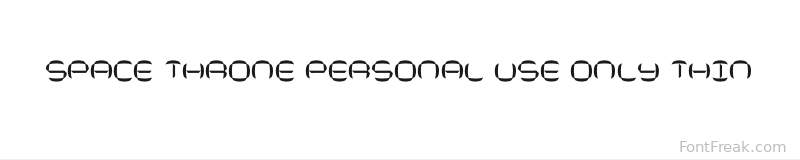
Space Throne PERSONAL USE ONLY Thin
About Space Throne PERSONAL USE ONLY Thin
The Space Throne PERSONAL USE ONLY Thin font by Mans Greback is a captivating display typeface that merges a modern aesthetic with a hint of futuristic flair. This sans-serif font features a sleek, thin stroke weight that lends itself to a light and airy feel, making it an excellent choice for contemporary design projects. The character spacing is well-balanced, allowing for legibility while maintaining an elegant appearance, and the subtle curves add a unique touch without overwhelming the overall design.
This font is particularly well-suited for a variety of creative applications. It can enhance wedding invitations with its stylish elegance, making the special day feel even more memorable. Additionally, it shines in movie posters, giving a futuristic vibe that captures attention and sparks curiosity. Restaurant menus can benefit from its clean lines, presenting dish names in a modern context that feels inviting to patrons. Moreover, the font is ideal for branding projects targeting tech startups or creative agencies, where a forward-thinking image is essential.
The target audience for the Space Throne PERSONAL USE ONLY Thin font includes graphic designers, small business owners, and content creators looking for a distinctive typeface to elevate their work. It appeals to those who appreciate design that is both functional and aesthetically pleasing.